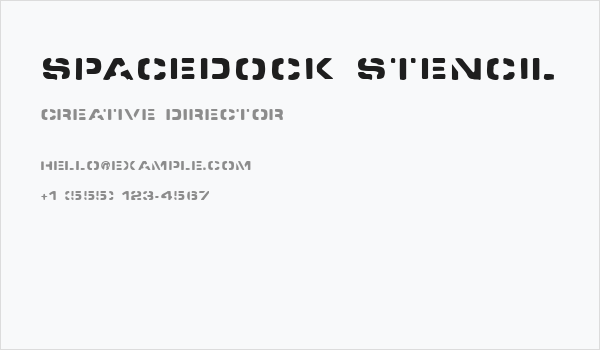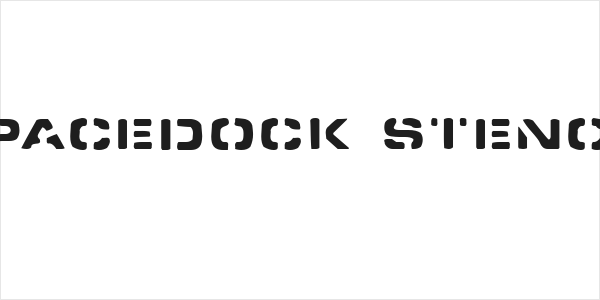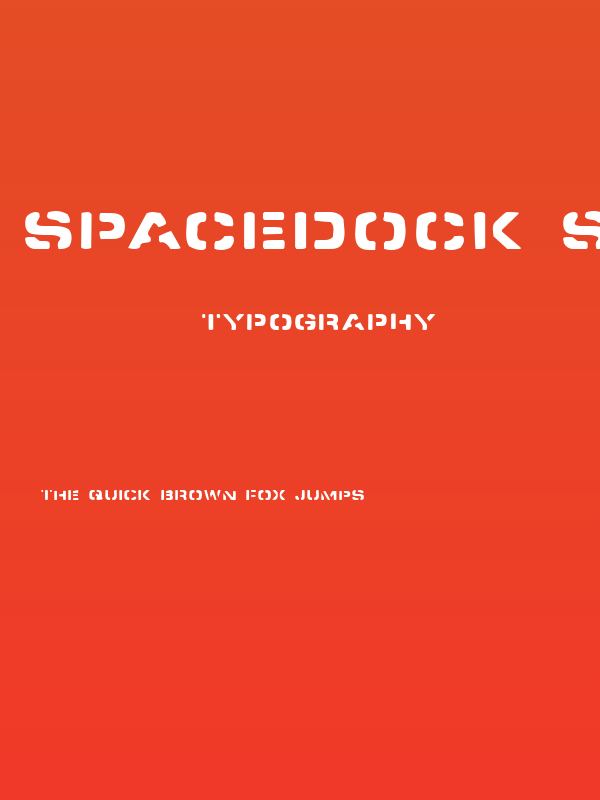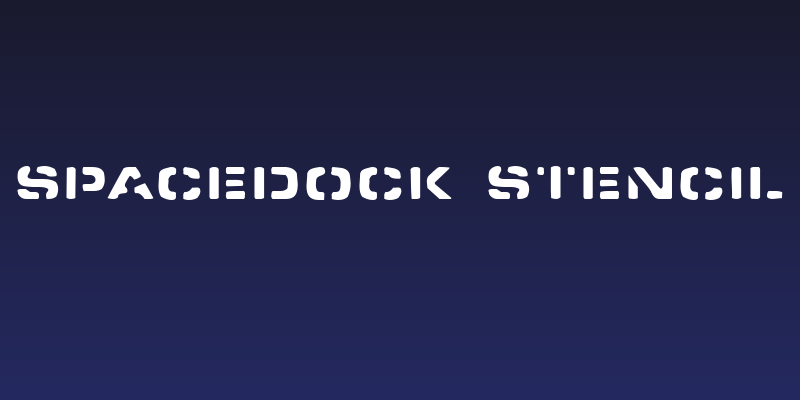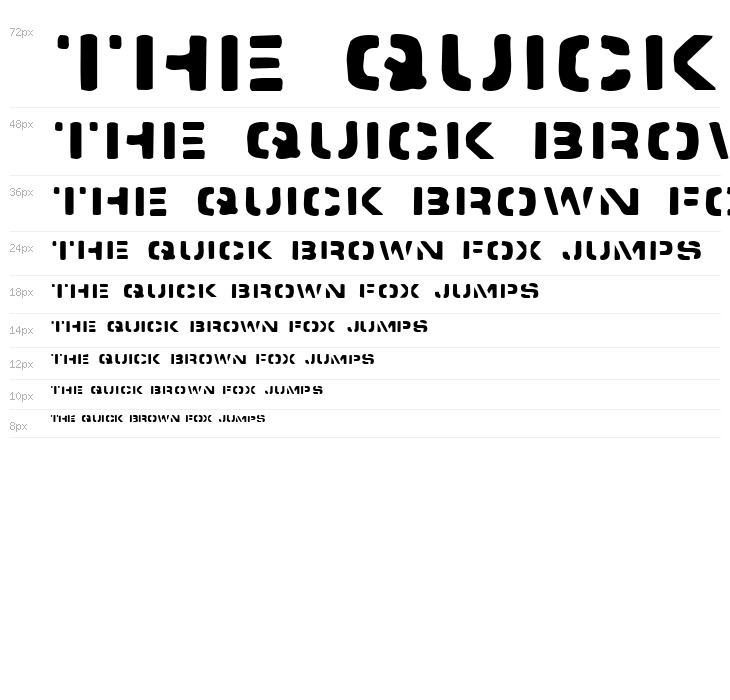
Spacedock Stencil Font
Spacedock Stencil Description
This font features a bold, stencil-like design with a futuristic and industrial feel. The characters are constructed with solid, geometric shapes and distinct cutouts, giving it a unique and striking appearance. The uppercase letters are particularly bold, with a consistent thickness throughout, while the numbers and special characters maintain the same robust style. The font's design is reminiscent of military or space-themed aesthetics, making it ideal for projects that require a strong, impactful look. The spacing between characters is normal, ensuring readability while maintaining its bold presence.
| Overall Style | Futuristic, Industrial |
| Proposed Projects | Ideal for sci-fi themed designs, military posters, branding for tech companies, and video game titles. |